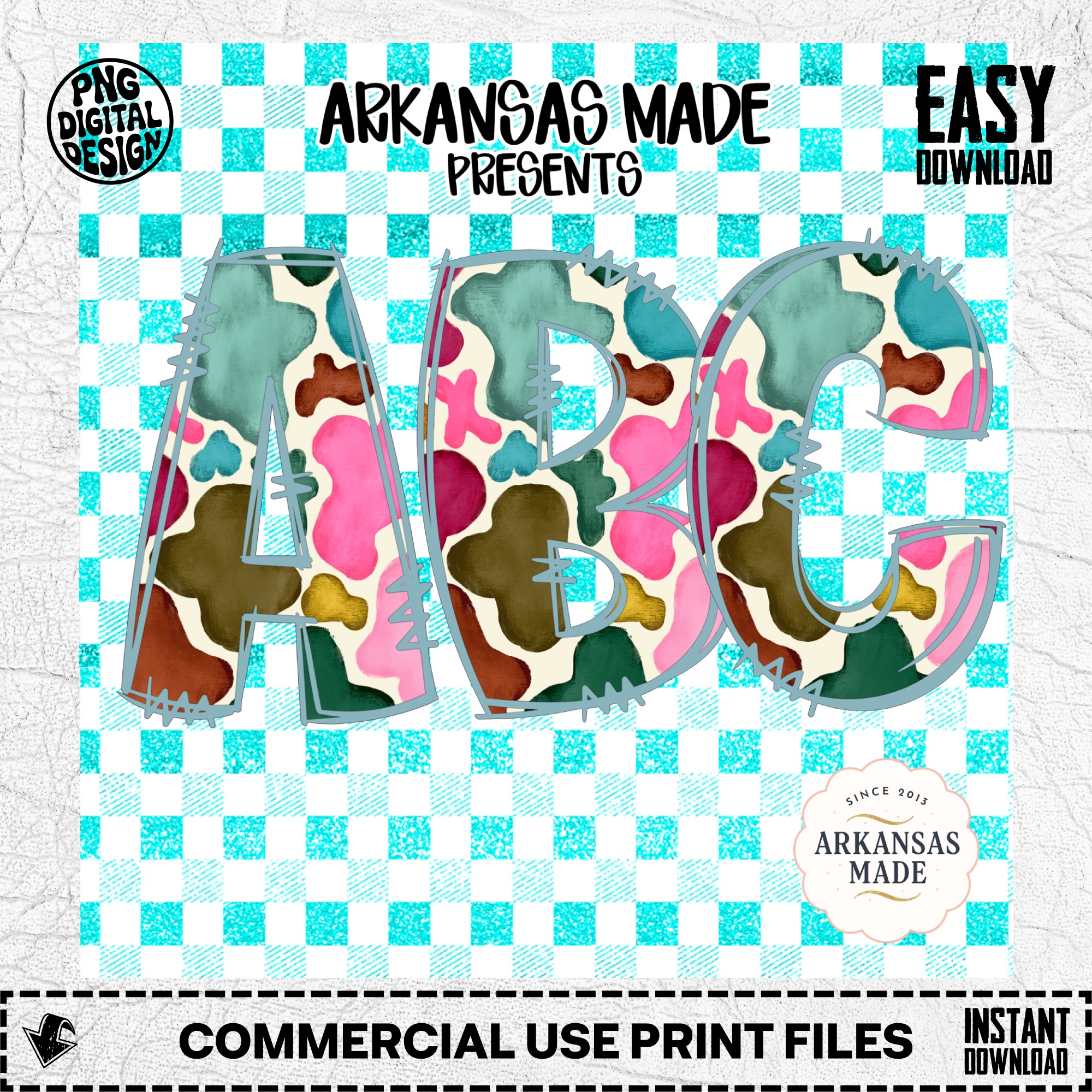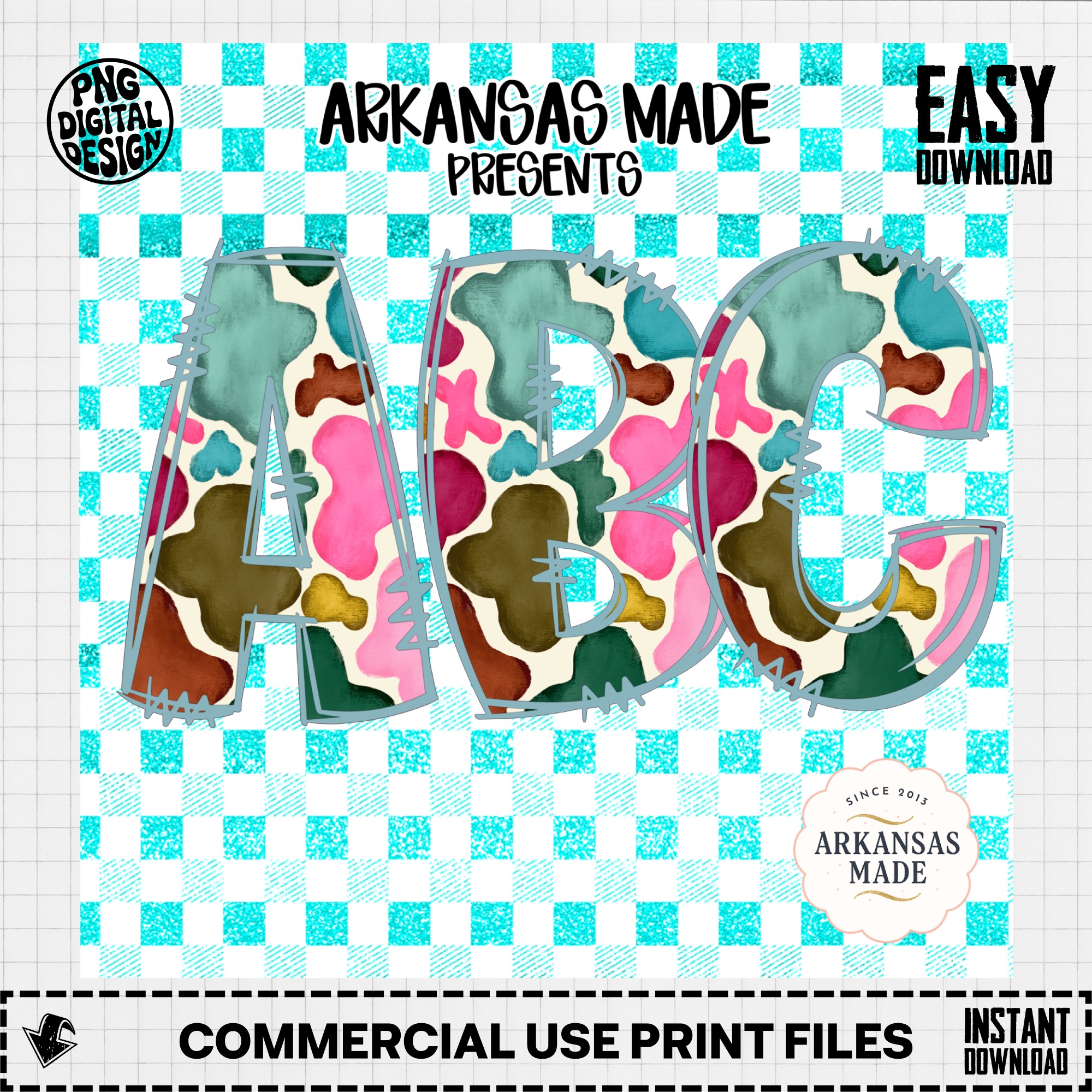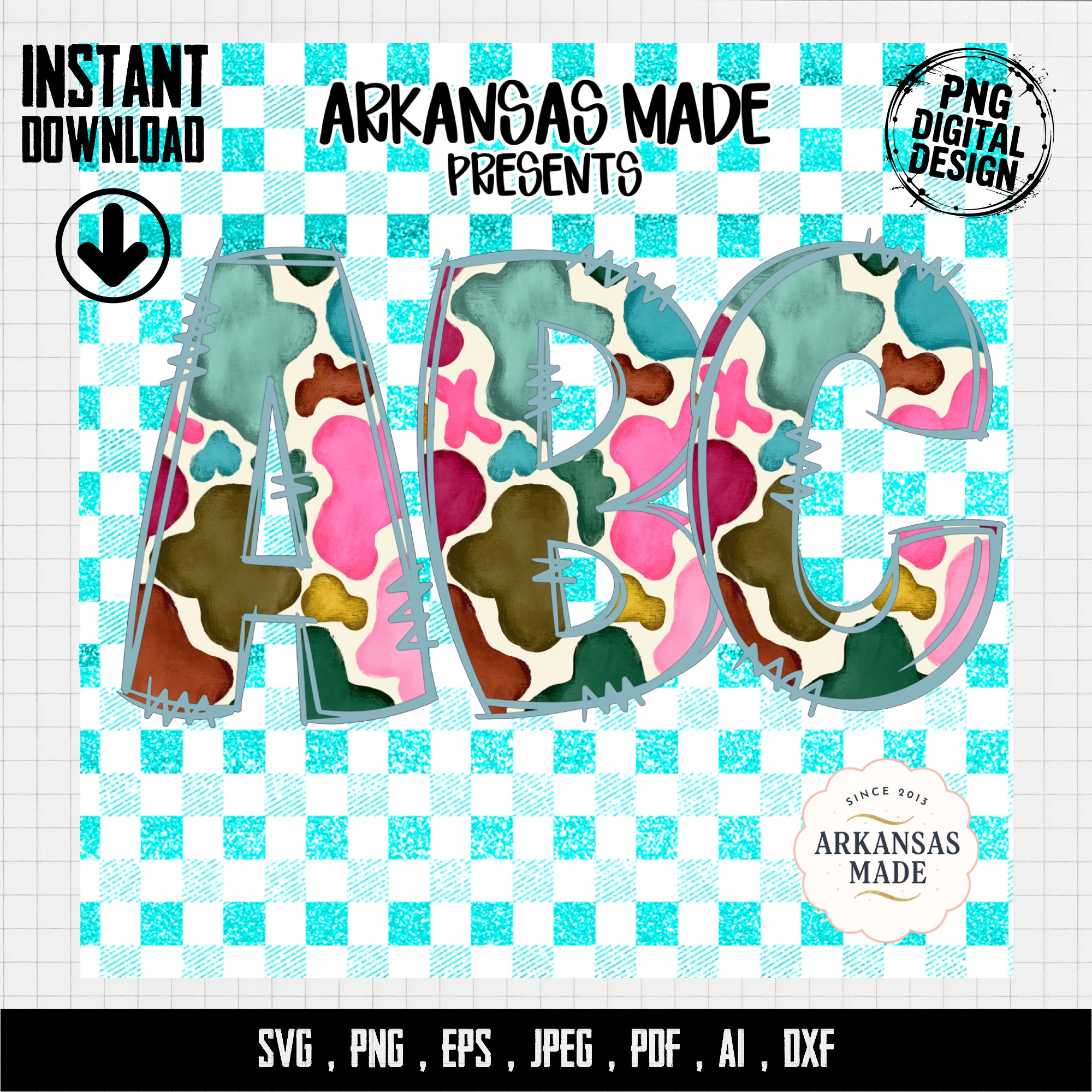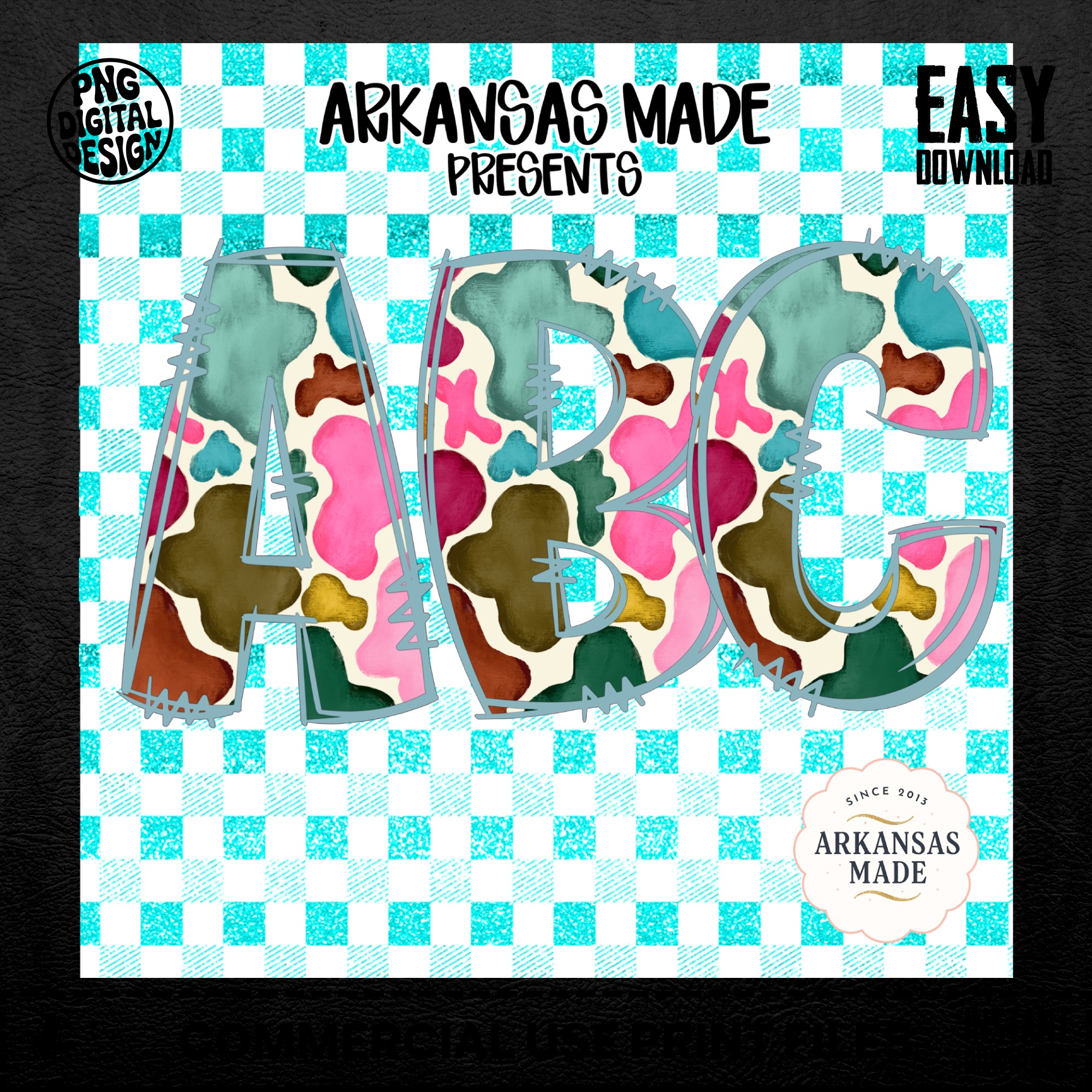
Elevate your creative projects with this vibrant and unique Abstract Cow Print Alphabet PNG bundle. Featuring a playful, colorful patterned design set against a cheerful teal gingham plaid background, this full A-Z letter set is perfect for a wide range of digital and sublimation applications.
Instantly download these high-quality PNGs to personalize apparel, accessories, home decor, and more. Each letter boasts an eclectic mix of teal, pink, brown, and olive hues, resembling a modern take on cow spots, outlined with a distinctive stitched look. The bright teal gingham backdrop adds a touch of rustic charm and visual interest, making your designs truly pop. Add a splash of personality and artistic flair to your next DIY venture or product line.
Full A-Z Alphabet included, capital letters.
Unique abstract cow print and teal gingham design.